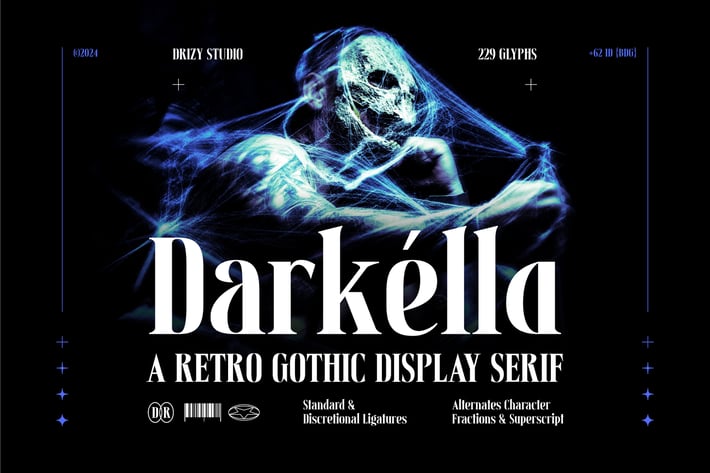
Darkella – Retro Gothic Display Serif Font
Darkella is a bewitching blend of vintage elegance and dark allure, making it the perfect choice for your Halloween themed projects. With its bold and ornate letterforms, Darkella captures the eerie essence of classic gothic typography, while adding a touch of retro flair. This font exudes a mysterious and haunting vibe, ideal for crafting spellbinding invitations, posters, and branding that demand attention. Whether you’re conjuring up a spooky atmosphere or creating a timeless, dark aesthetic, Darkella will cast a powerful spell on your designs.
Darkella Script features:
- Character Set (Uppercase & Lowercase)
- Punctuation & Numbers
- Multilingual
- Alternates “a, g”.
- Standard & Discretional Ligatures
Elevate and explore the design possibilities with this Halloween Design Font!